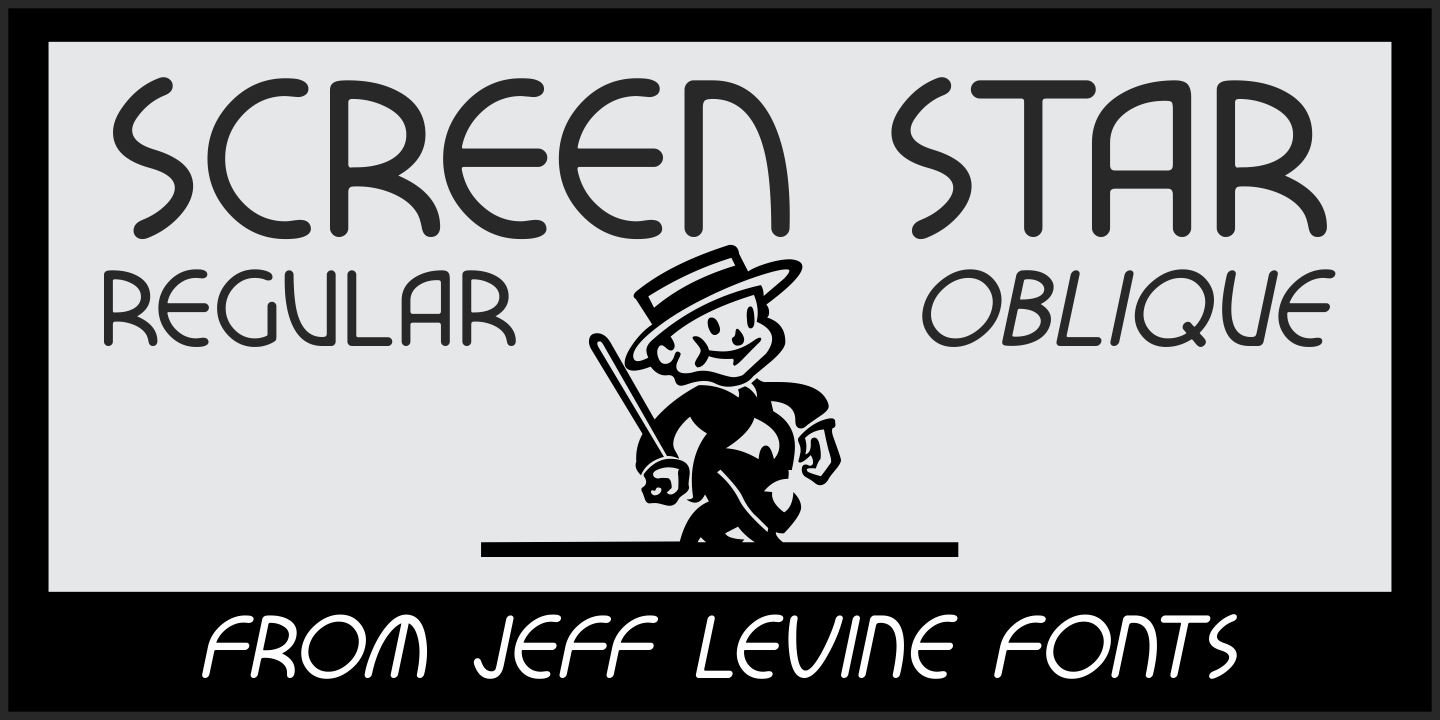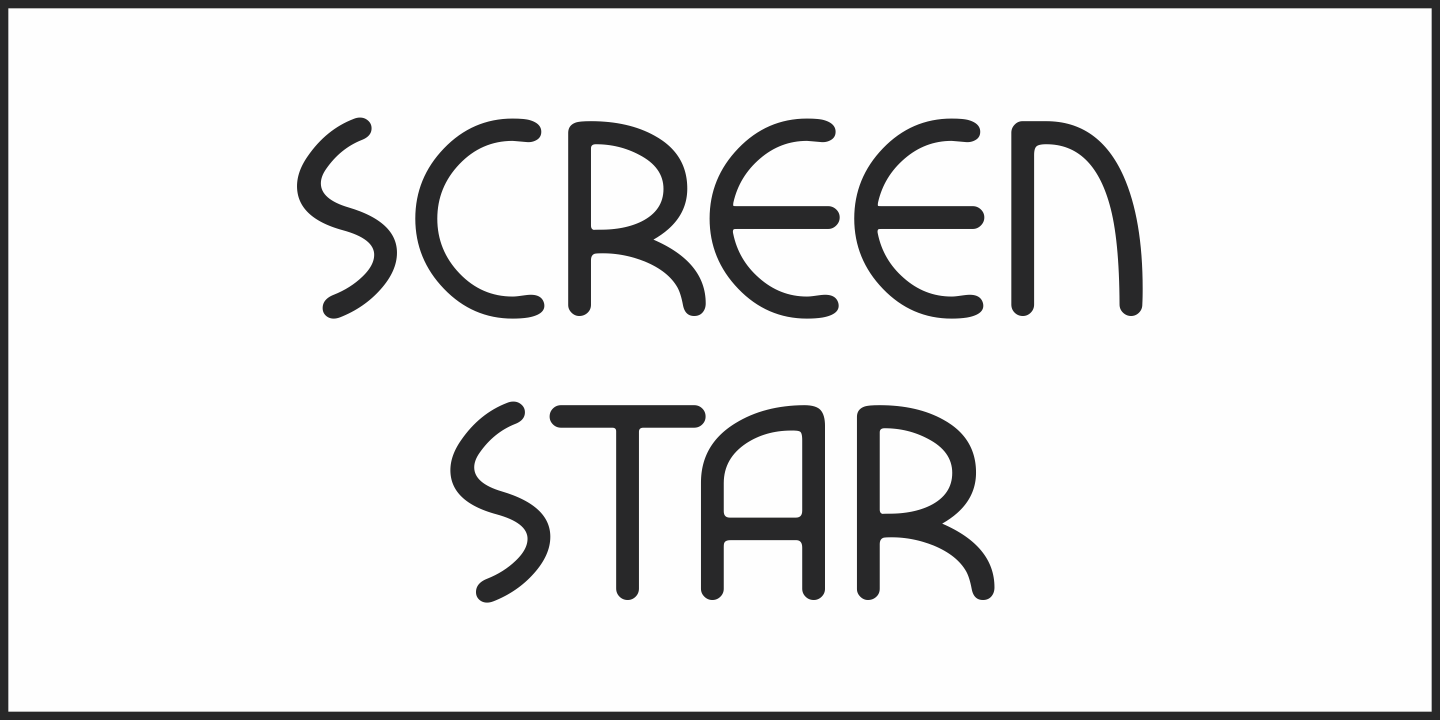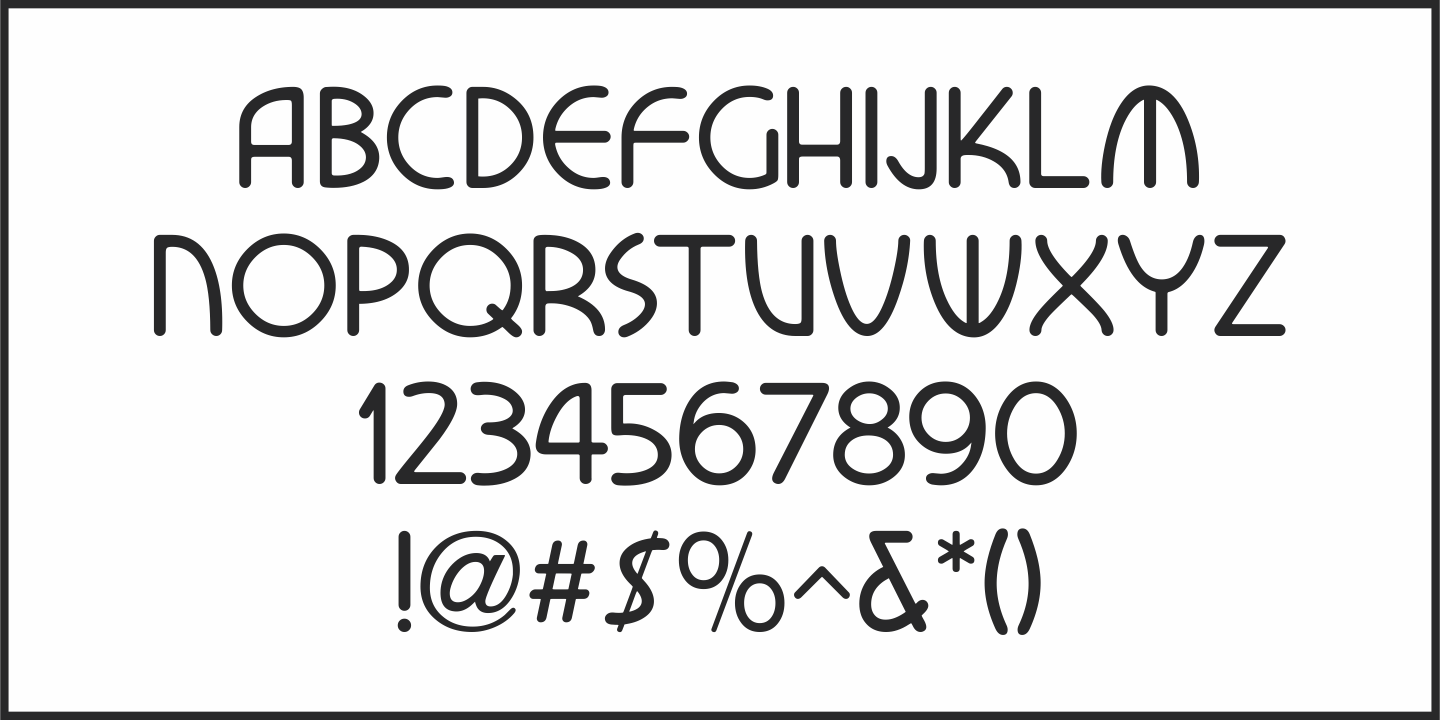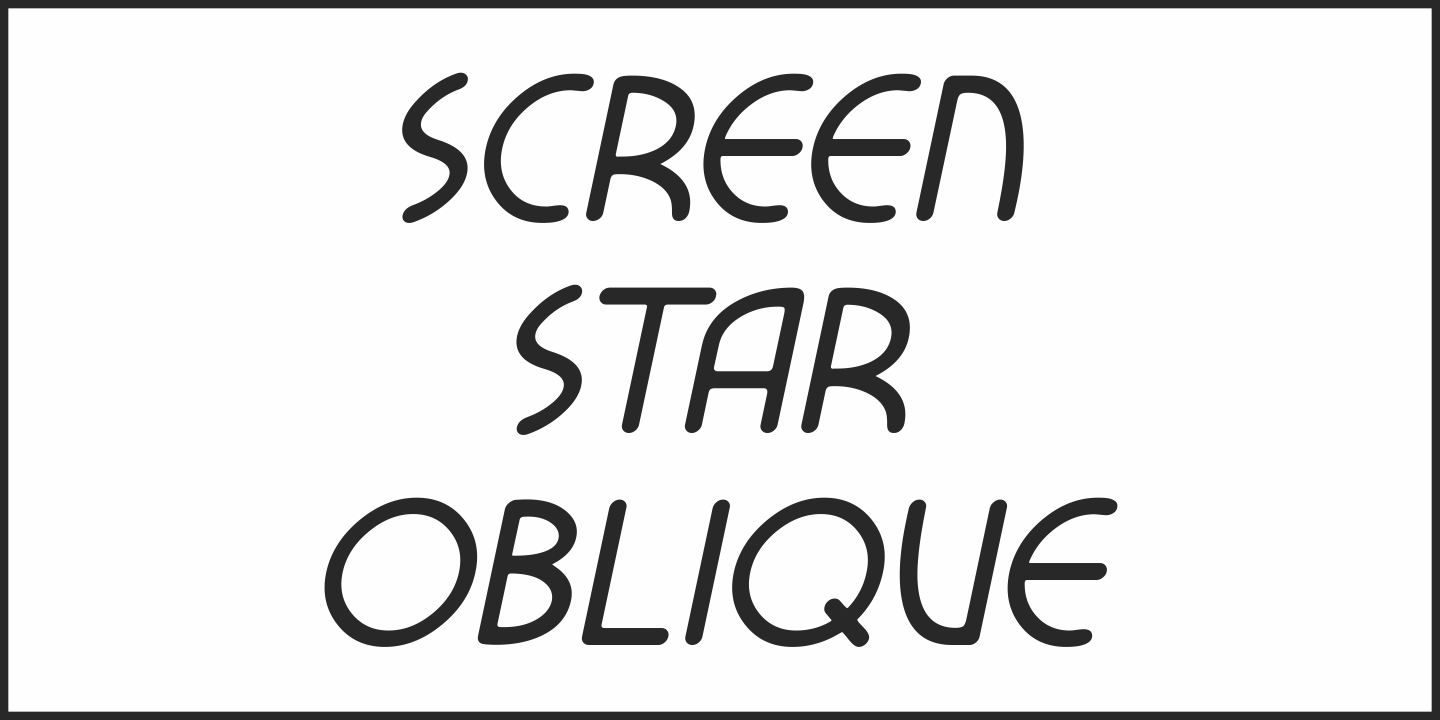
Screen Star
The opening credits to the original (1937) version of “A Star is Born” starring Janet Gaynor and Frederic March was hand lettered in an Art Deco style with rounded terminals that emulated the look of neon signage – alluding to the glitz and glamour of 1930s Hollywood.
Screen Star JNL is the digital revival of that lettering, and is available in both regular and oblique versions.
Screen Star JNL Regular by Jeff Levine Fonts